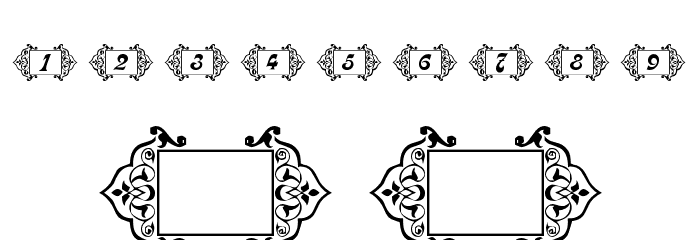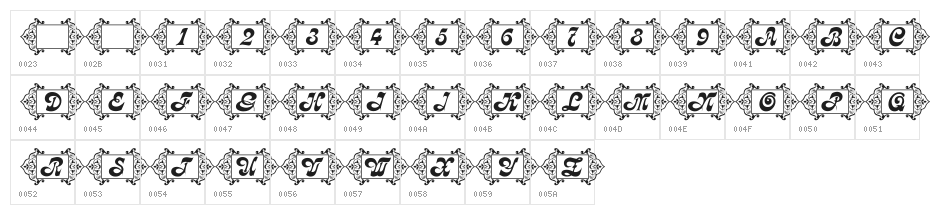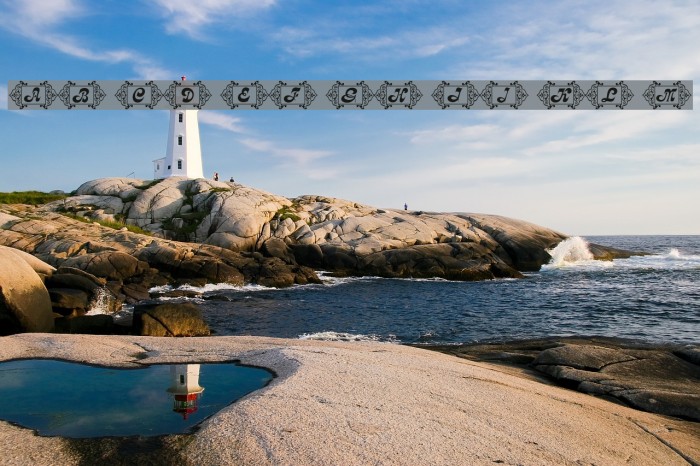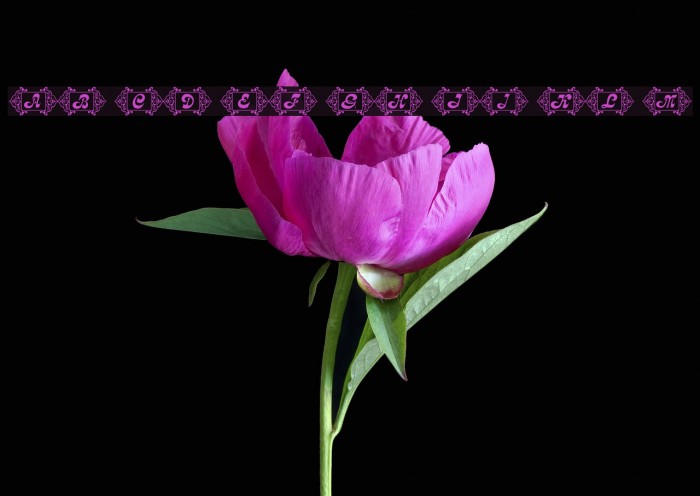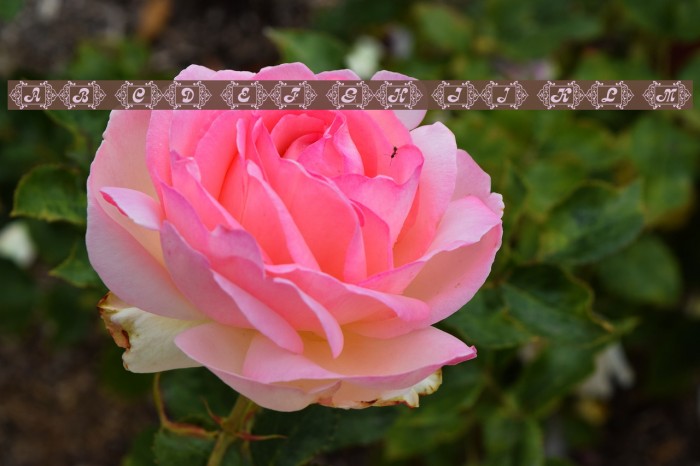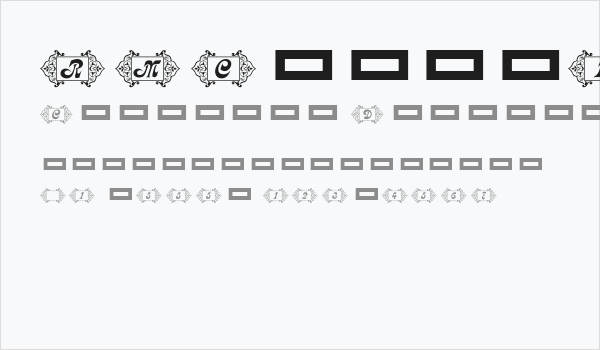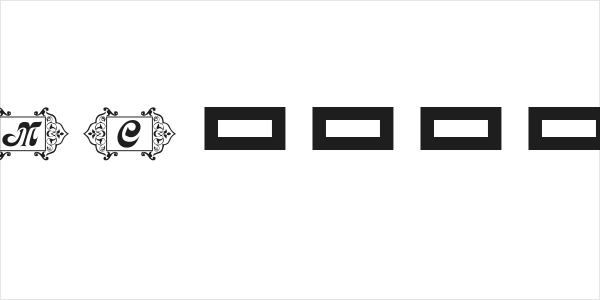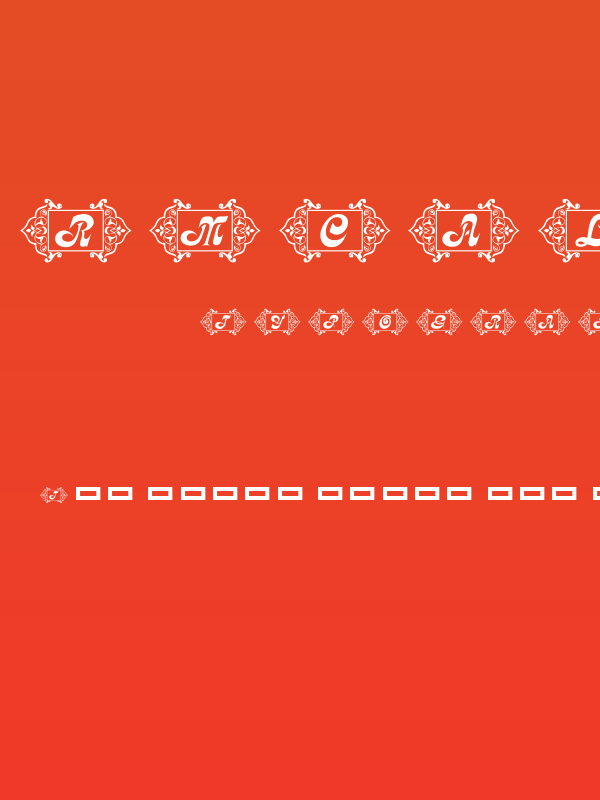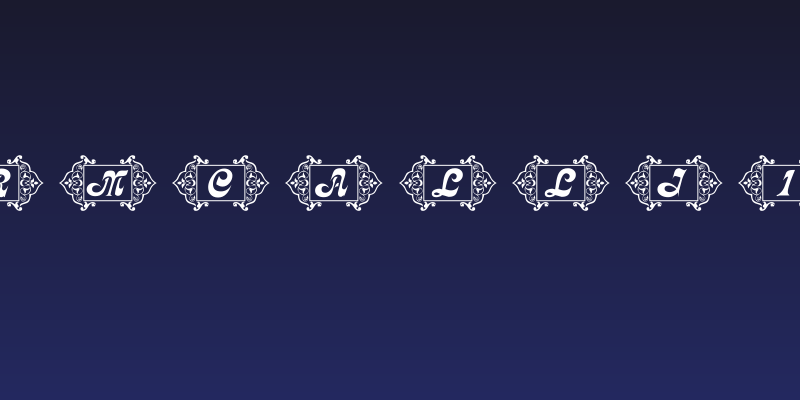
RMCalli1 Font
RMCalli1 Description
This font features an ornate and decorative style, with each character encased in an intricate frame that resembles vintage or Victorian-era design. The letters and numbers are bold and clear, yet the surrounding embellishments add a layer of complexity and elegance. The overall appearance is reminiscent of old-fashioned signage or invitations, where the focus is on creating a luxurious and sophisticated impression. The frames around each character are symmetrical, with floral and scroll-like patterns that enhance the visual appeal. This font is ideal for projects that require a touch of classic elegance and artistic flair.
| Use Case | Logos, Invitations, Decorative Signage |
| Proposed Projects | Ideal for wedding invitations, vintage-themed posters, luxury brand logos, and decorative signage. |